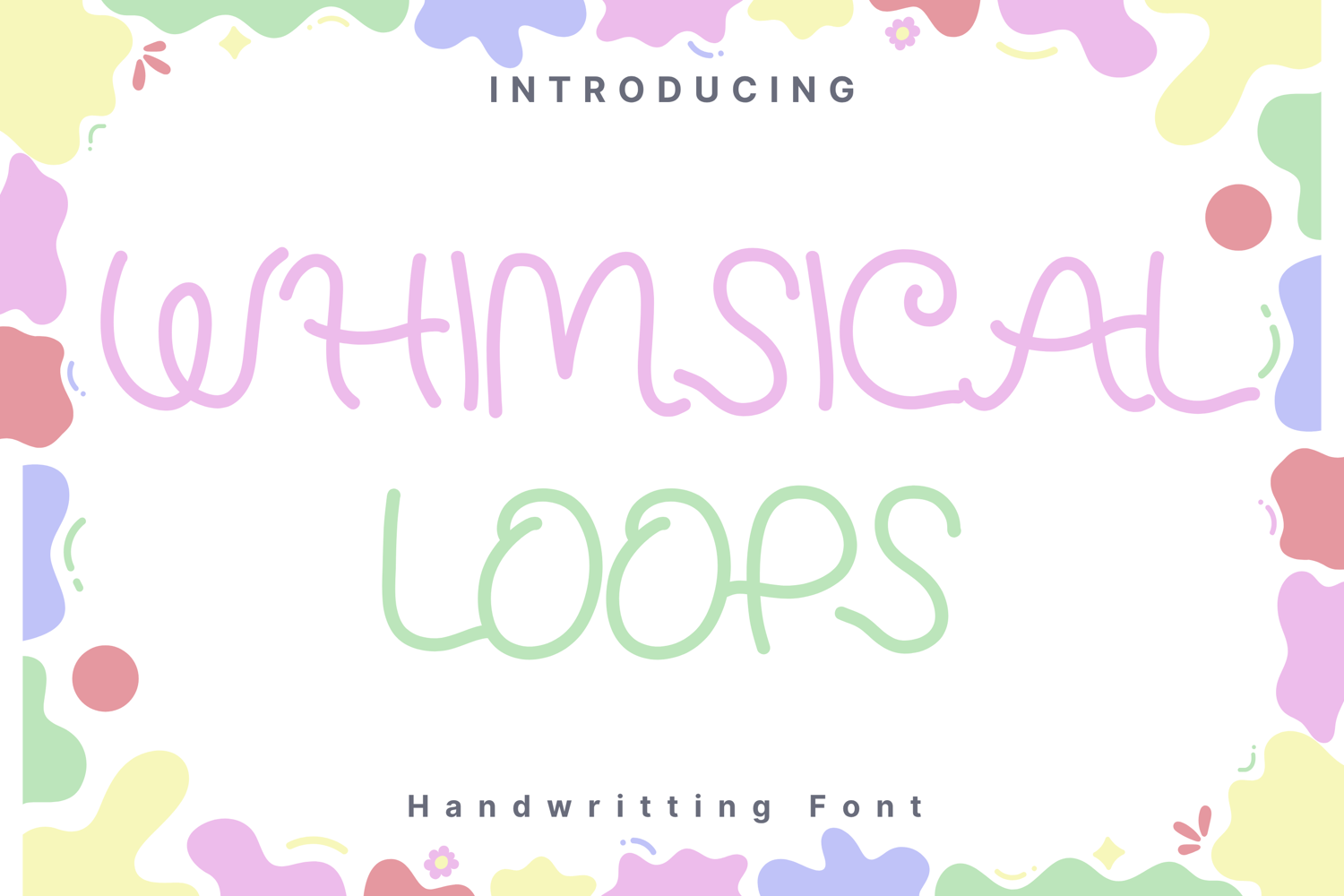
Whimsical Loops Style
Whimsical Loops is a delicate and charming handwritten font featuring airy strokes, soft curves, and curly embellishments. With its light, flowing letterforms and friendly tone, it’s ideal for stationery, feminine branding, wedding invitations, quotes, and cute greeting cards. The font combines a balance of elegance and playfulness, making it perfect for projects that aim to feel both handwritten and magical — great for storytelling, romance, and lifestyle visuals.